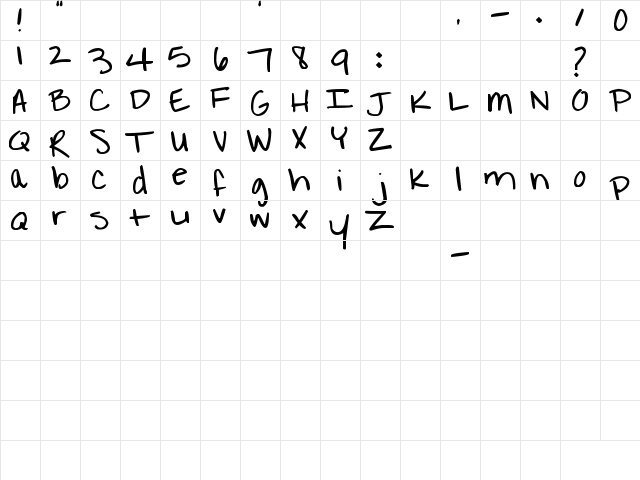
Pea Protani Regular
Design Context for Pea Protani Typeface
Pea Protani is a composed and adaptable typeface that performs quietly and consistently across a wide range of design contexts.